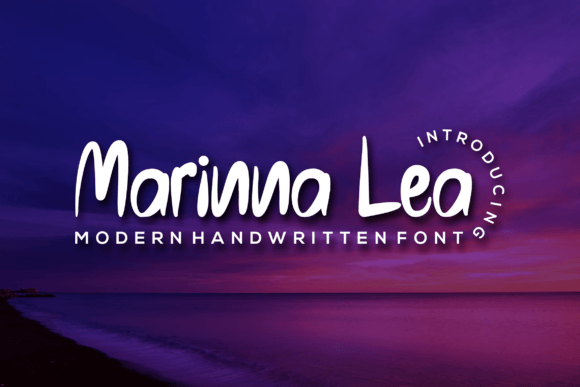
Meet Marinna Lea Font, the playful and charming script font that will add a touch of magic to your creative projects. Its whimsical and quirky nature will enchant you and your audience, making it the perfect choice for personal and commercial designs.
Marinna Lea is a versatile font that exudes both elegance and fun. Its smooth curves and playful strokes create a joyful atmosphere that will captivate your readers. Whether you're designing logos, invitations, social media posts, or any other visual content, Marinna Lea will elevate your work with its unique style.
Let your creativity shine with Marinna Lea's diverse range of styles. From bold and eye-catching to delicate and understated, this font family offers endless possibilities to match your vision. Experiment with different weights and swashes to create a truly personalized design that reflects your unique aesthetic.
Marinna Lea is more than just a font; it's an expression of your creativity. Whether you're a seasoned designer or just starting out, this font will inspire you to create captivating designs that leave a lasting impression. Step into the world of Marinna Lea and let your imagination soar.